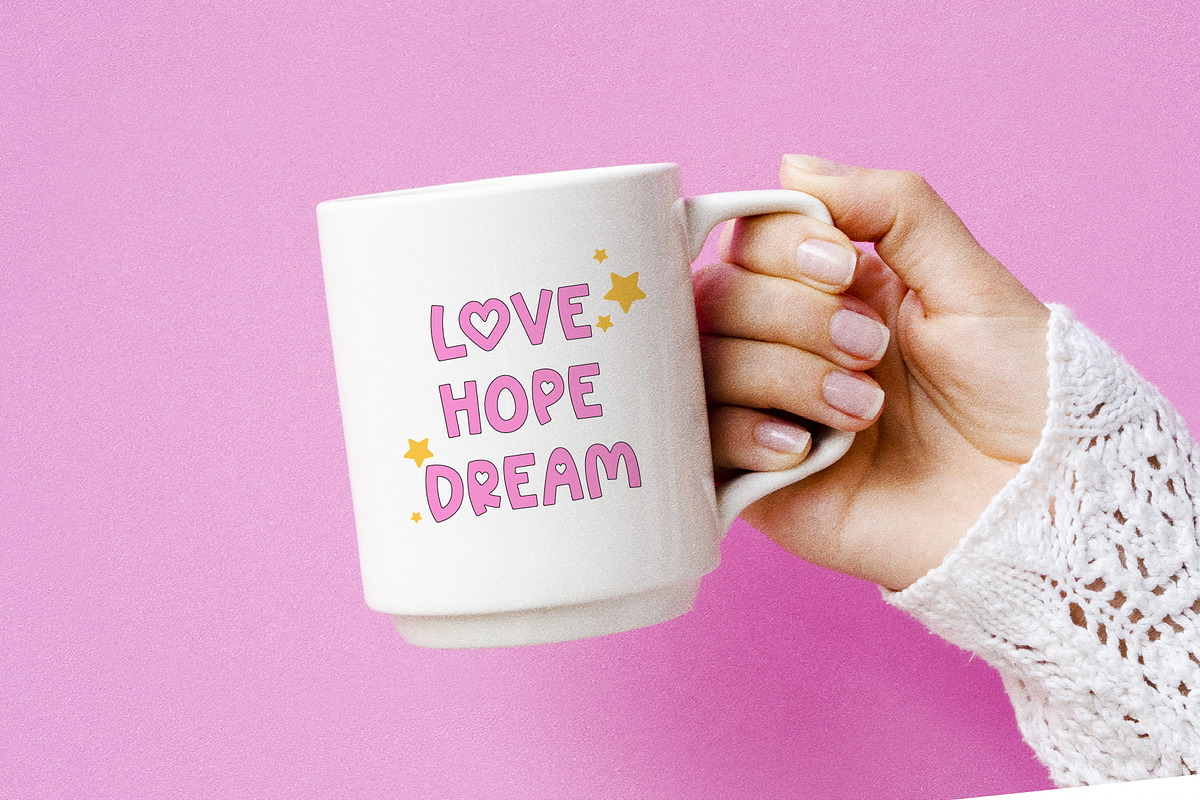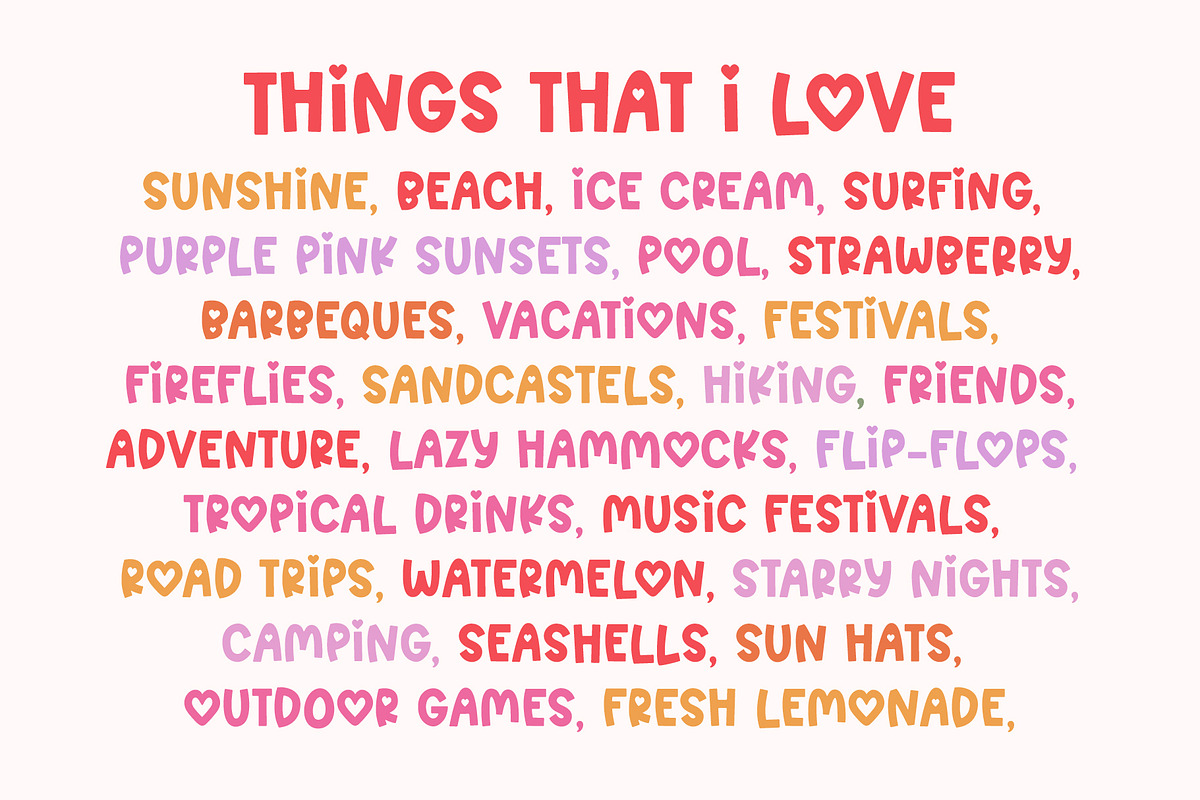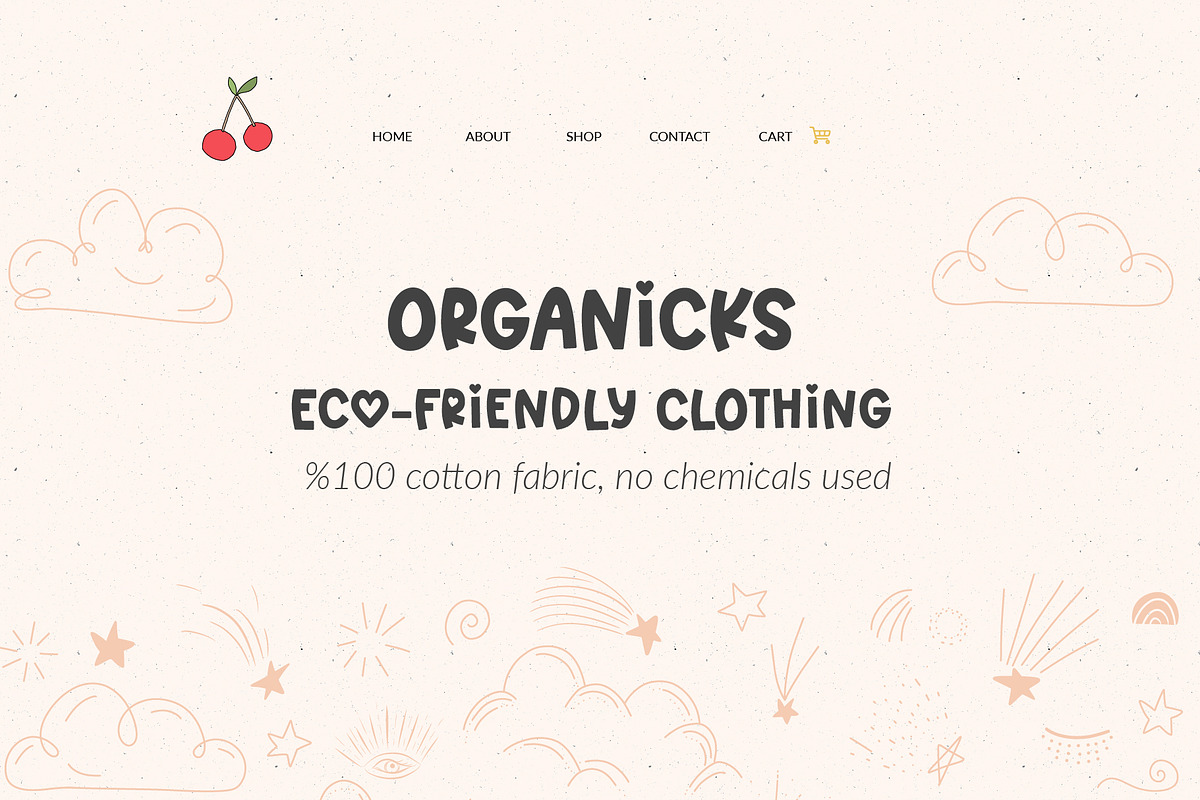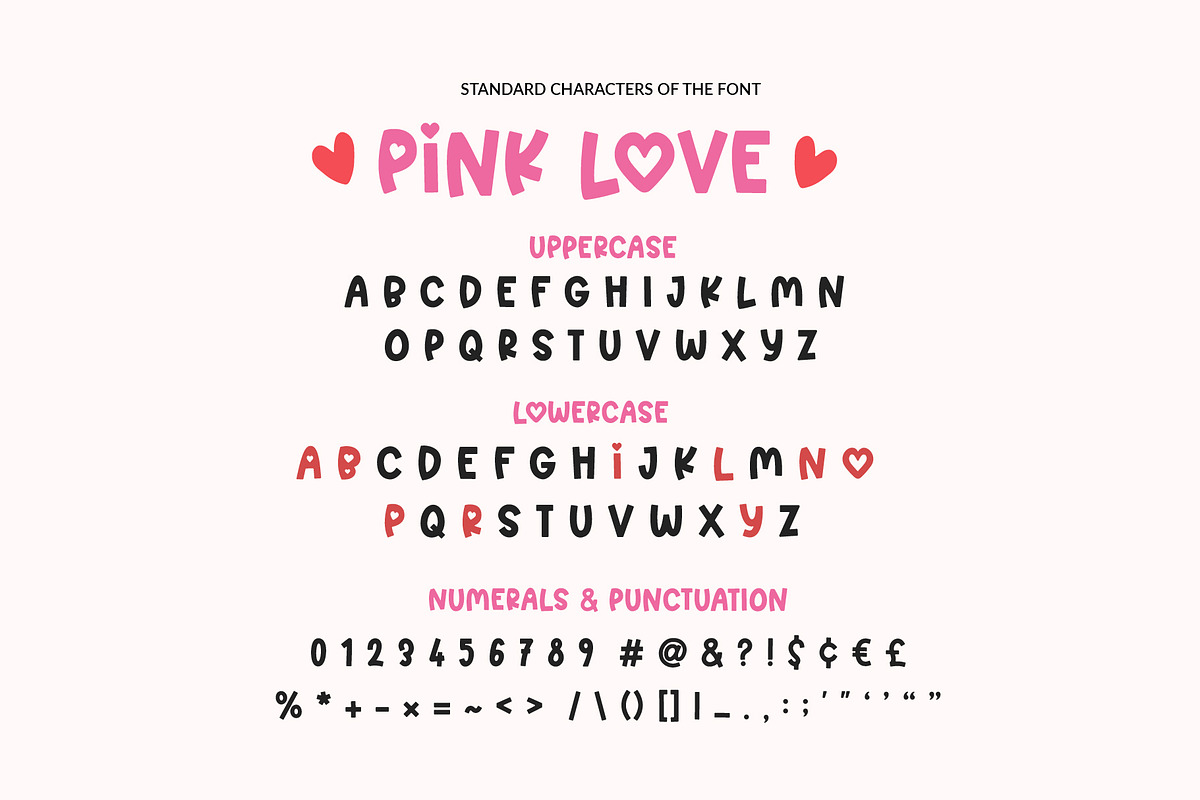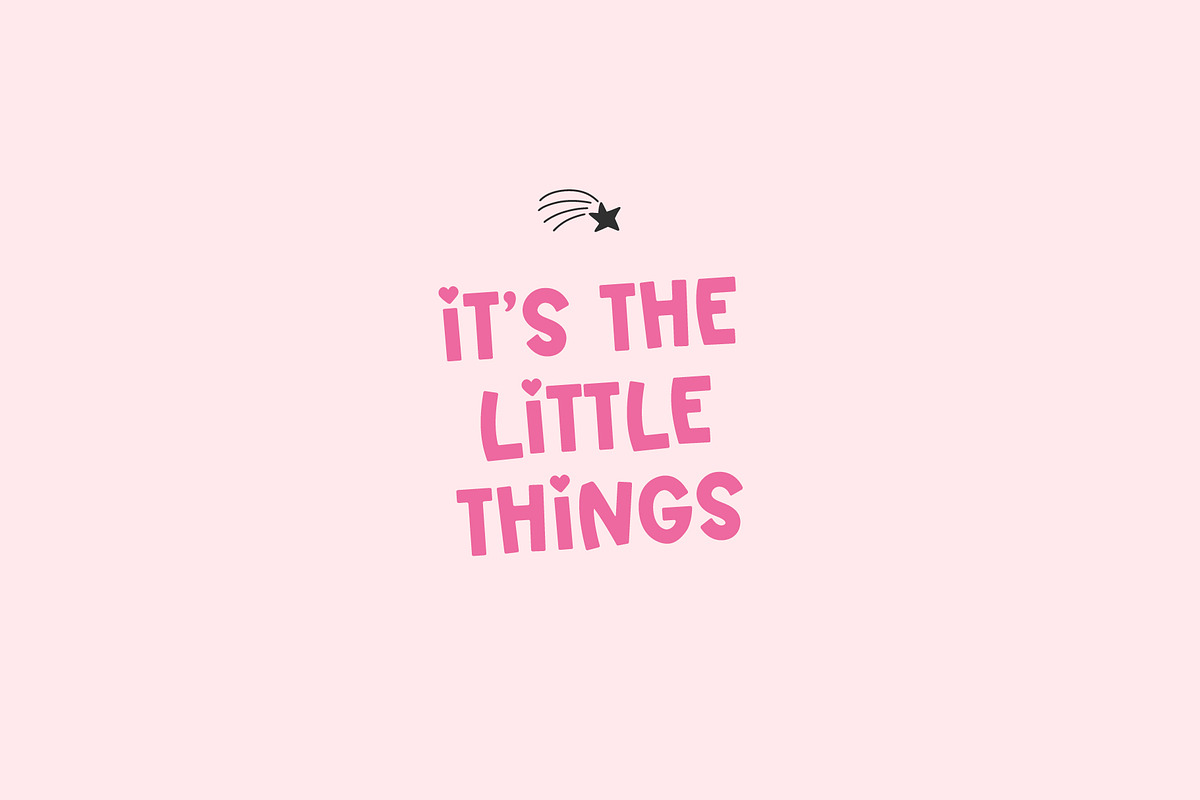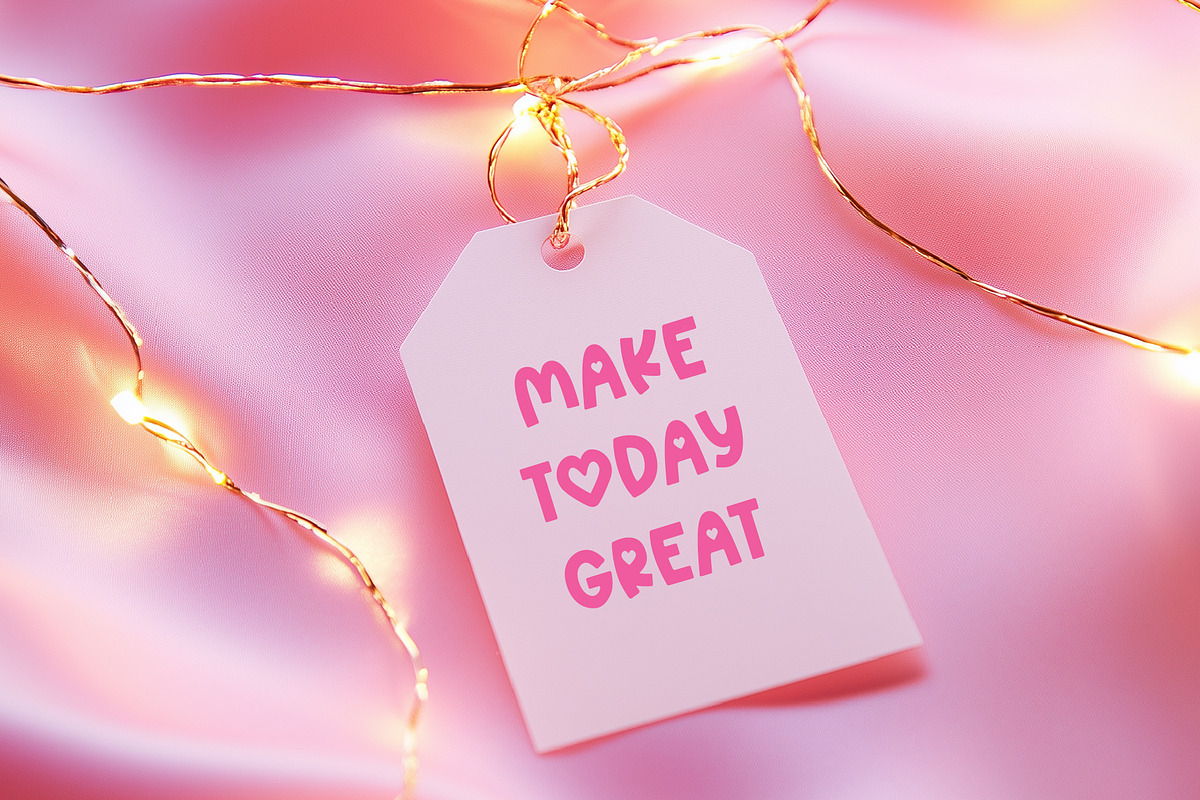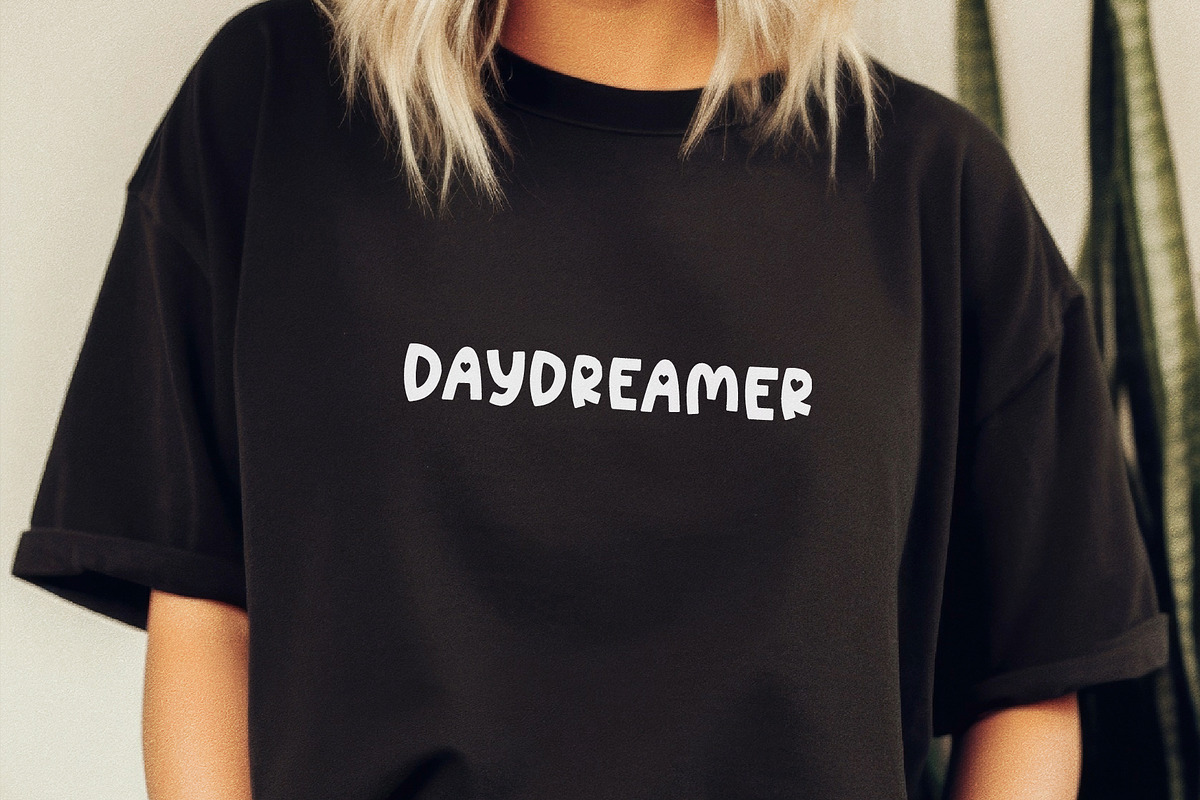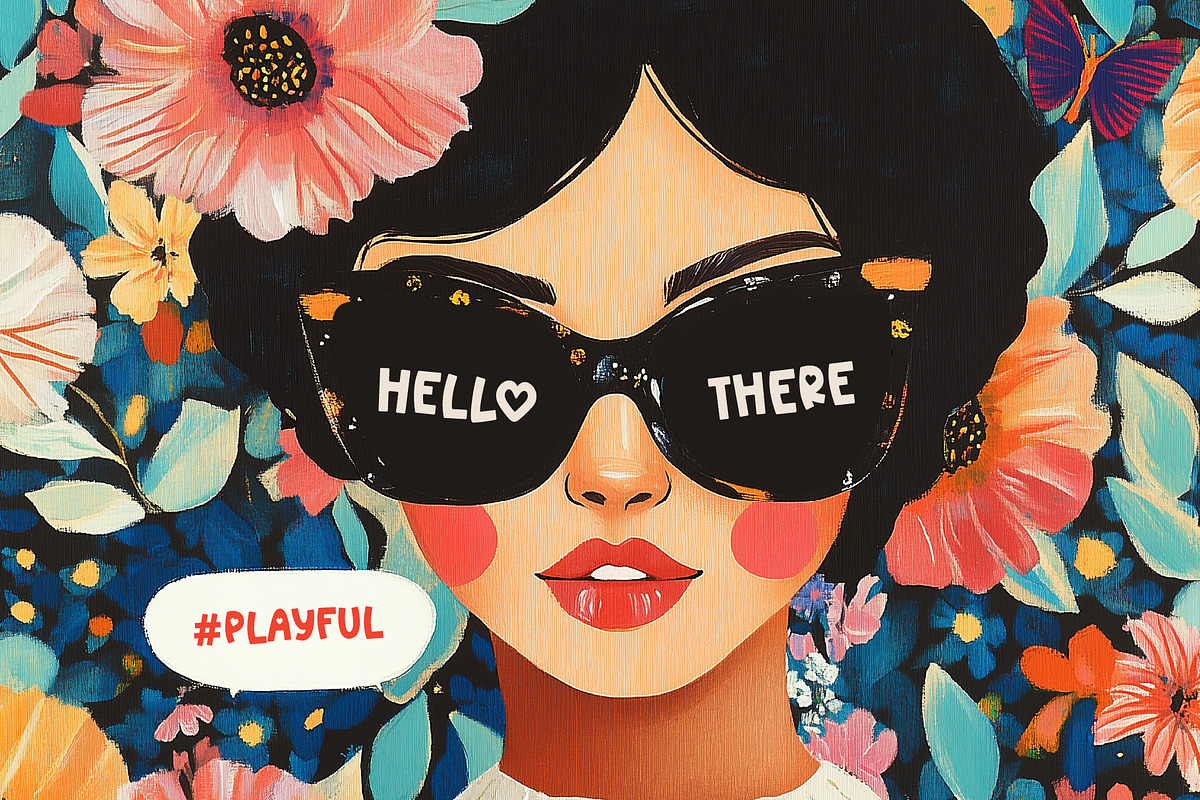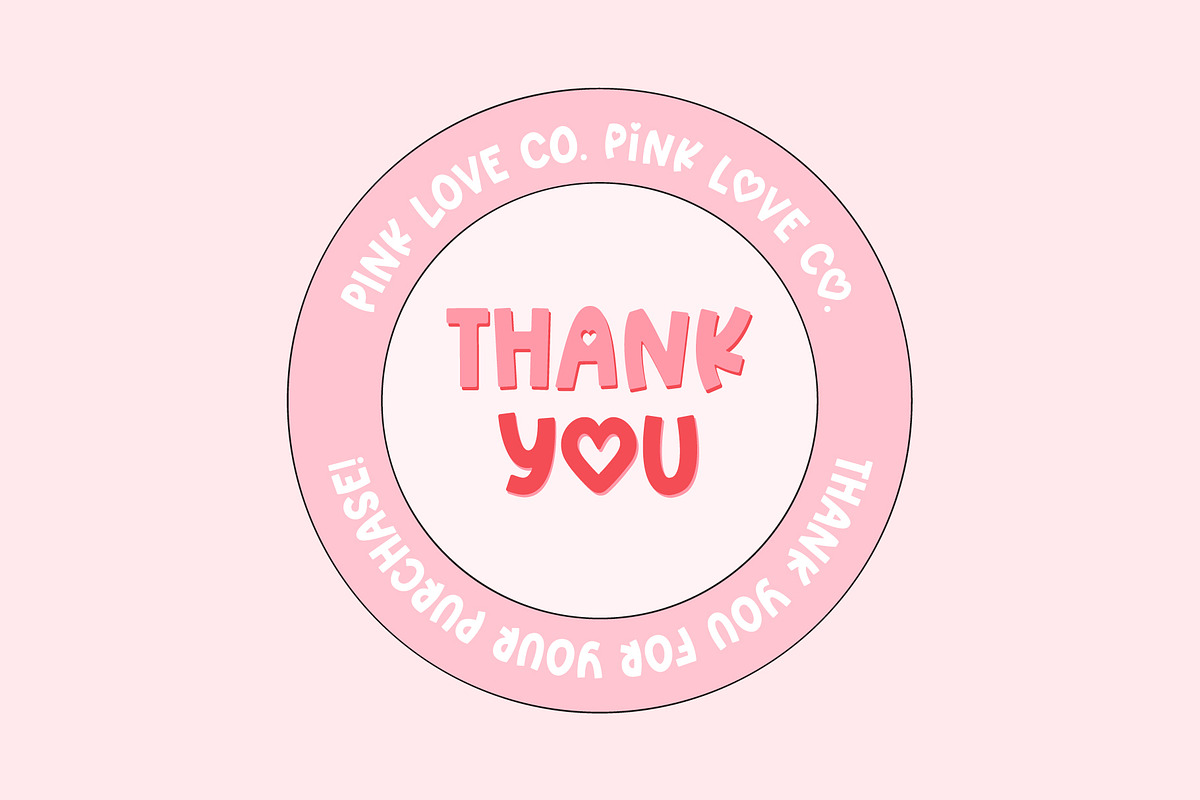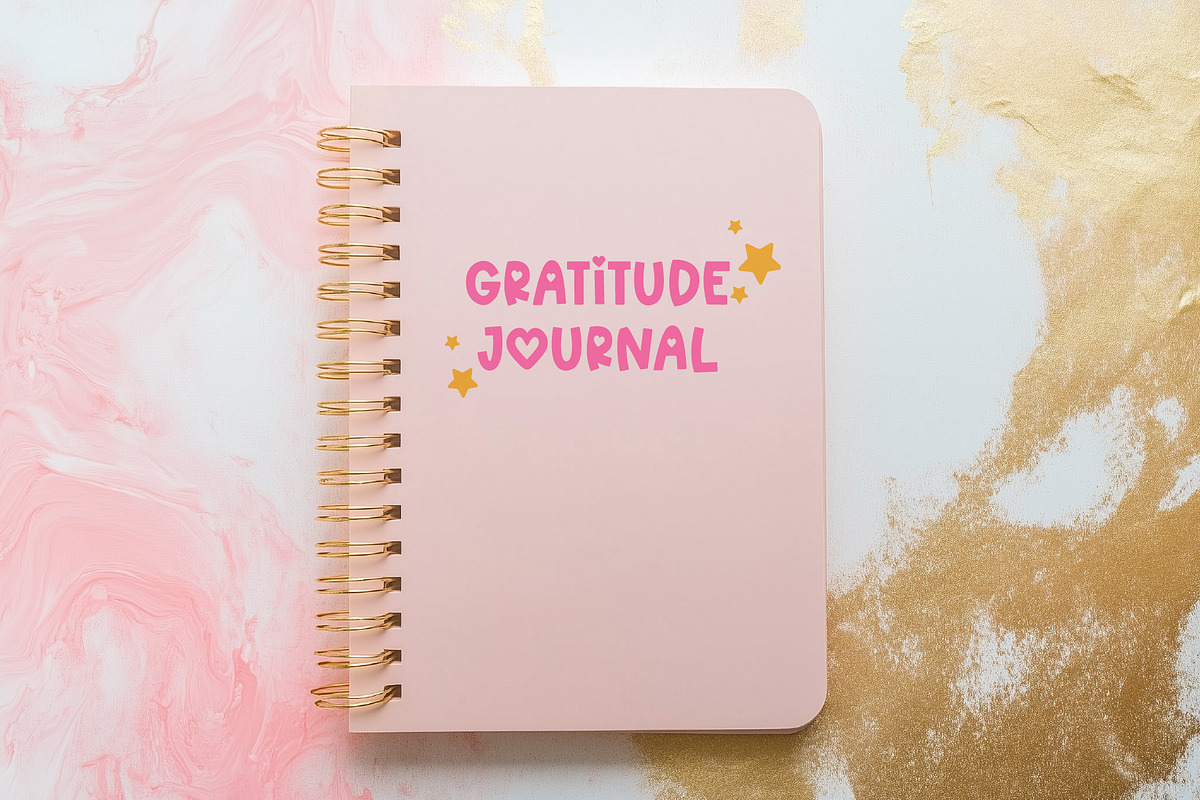
Pink Love - All Caps Heart Font
Pink Love is a lovely all caps font with a heart accent.
Perfect for creating cards, Cricut crafts, posters, social media, invitations, DIY projects, and anything that needs a little extra love.
Standard characters: two sets of uppercase, numbers, punctuation